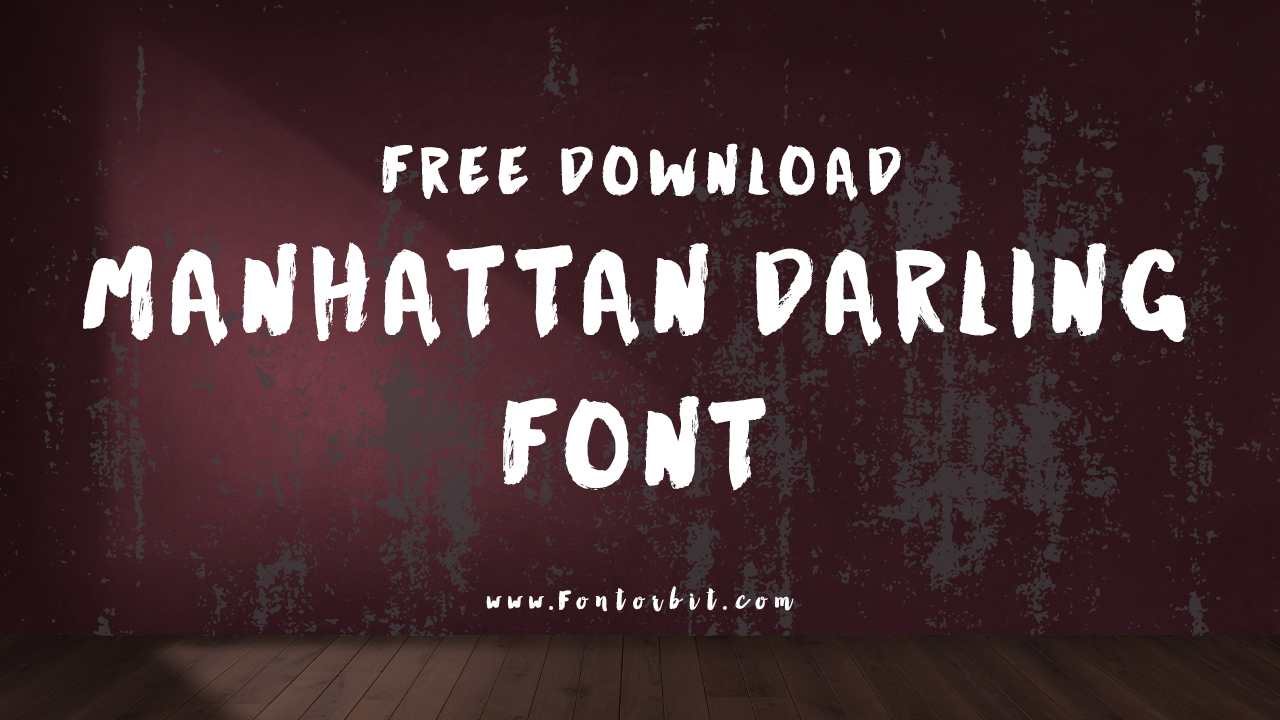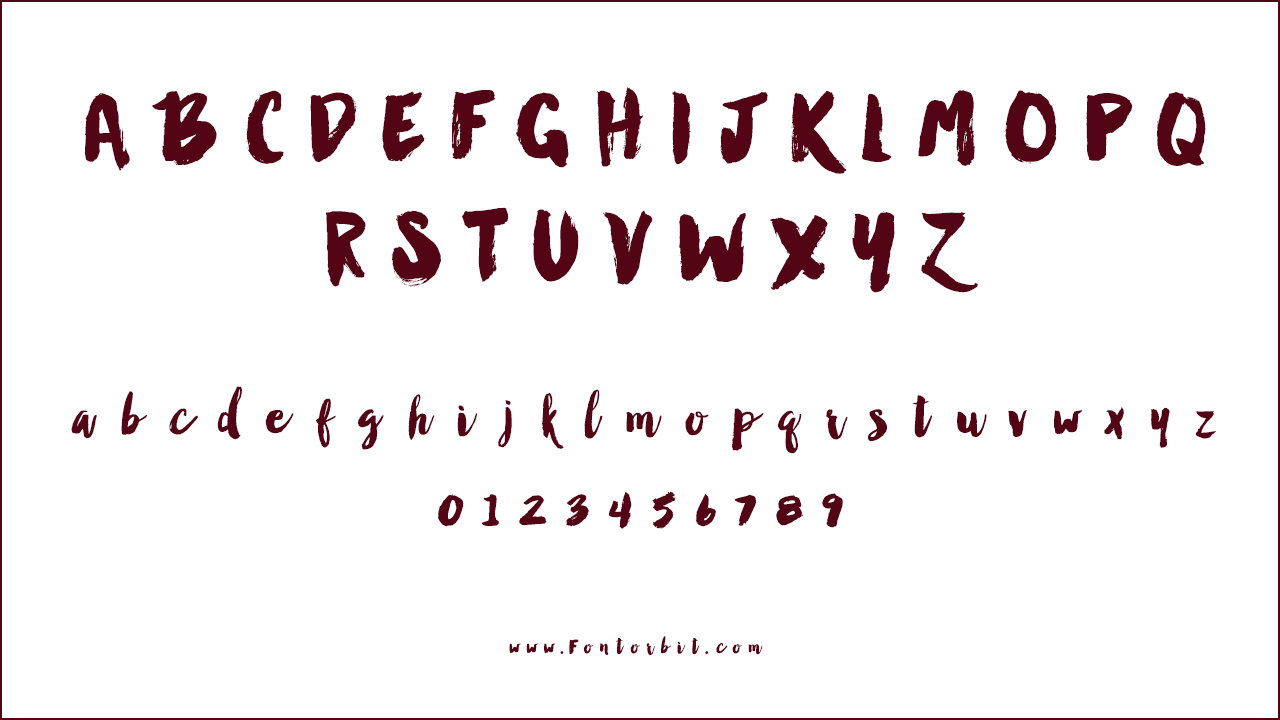
The Manhattan Darling Font is a distinctive hand-brushed typeface created by Callie Rian & Co. Characterized by its gritty, imperfect design and irregular baseline, Manhattan Darling is known for its organic and natural look.
This typeface offers a dual-purpose style with uppercase and lowercase options that cater to various design needs, making it perfect for those seeking a creative, hand-painted aesthetic.
This font is a popular choice for designers looking for a handcrafted, artistic typeface. With its brush-style characters, Manhattan Darling is perfect for creating eye-catching logos and elegant branding materials.
Manhattan Darling Font Found In Use
Manhattan Darling Font is commonly seen in branding, logo designs, and artistic layouts due to its distinct hand-brushed appearance. It is frequently used in product packaging, wedding stationery, and various promotional materials.
The font’s organic and textured look captures attention effortlessly, making it a favorite for projects that require a creative and artistic touch. Its versatility shines in both print and digital applications, offering a natural feel across different mediums.
Due to its organic, hand-crafted style, the Manhattan Darling Font excels in various design contexts. Its ability to create a striking visual presence makes it suitable for both digital and print media. Its natural brush-stroke texture makes integrating it into modern design workflows easy, adding a personal and artistic flair to any project.
2.What Are The Color Palettes That Complement Manhattan Darling Font?
Manhattan Darling Font pairs well with soft, pastel color palettes for a delicate and elegant look. For a bolder statement, use it with contrasting colors like black and white or rich jewel tones.
3.How To Customize Manhattan Darling Font For A Specific Project?
Customize Manhattan Darling Font by adjusting your design software’s letter spacing, kerning, and size. Utilize the font’s special swashes and alternative glyphs to add a unique touch to your text layouts.
4.What Are The Recommended Font Sizes For Manhattan Darling Font In Different Mediums?
For print, use Manhattan Darling Font at sizes 18pt and above for headlines, and 12pt to 16pt for body text to maintain legibility. On screens, 24px for headers and 14px to 18px for body text work well to capture the font’s handcrafted detail.
5.What Kind Of Font Is Manhattan Darling Font?
Manhattan Darling Font is a brush-style typeface characterized by its hand-brushed, textured look and irregular baseline, offering a natural, organic feel with both bold and delicate options for versatile design applications.